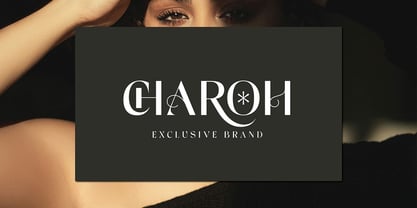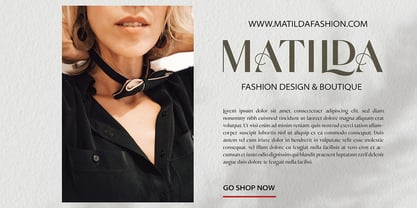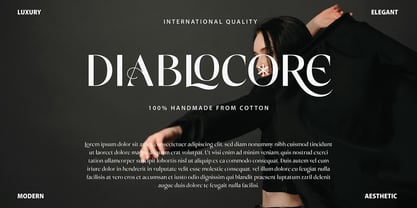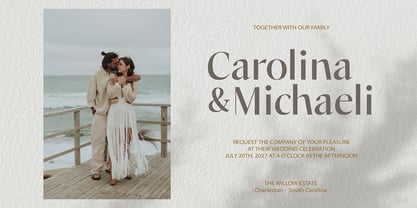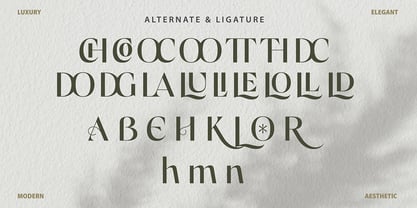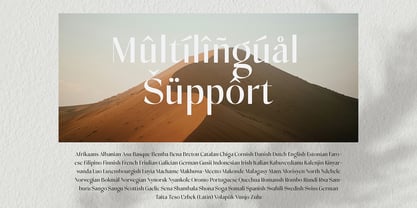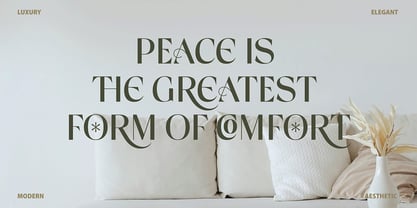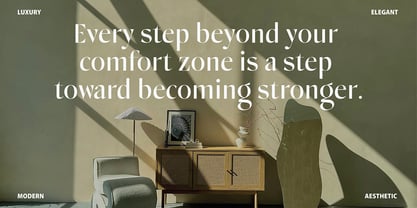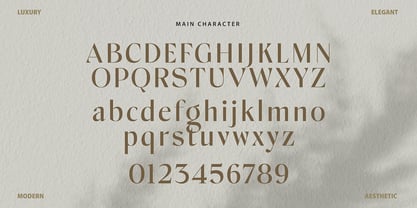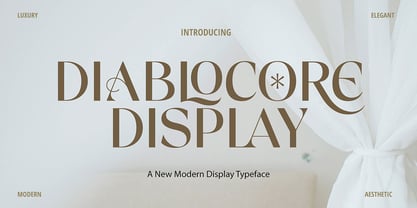
Diablocore Display
La famille de polices Diablocore Display a été conçue par Ferdiansyah et publiée par Pointlab. Diablocore Display contient 2 styles et options de package familial. En savoir plus sur cette famille
Cellina Wildrone Display Font that we created special for Luxury and Fashion branding needs, with extra characters alternate in unique shape will be ready to add value of your brand. It so nice to leverage designer or product owner that need solutions to make their design look more classy and modern. And specially for this font, We prepared any alternate characters to help you create unlimited variations for your creative needs.
Cellina Wildrone Display Font come with 200+ glyphs. The alternative characters were divided into several Open Type features such as Swash, Stylistic Sets, Stylistic Alternates, and Ligature. The Open Type features can be accessed by using Open Type savvy programs such as Adobe Illustrator, Adobe InDesign, Adobe Photoshop Corel Draw X version, And Microsoft Word. And this Font has given PUA unicode (specially coded fonts). so that all the alternate characters can easily be accessed in full by a craftsman or designer.
Cellina Wildrone Display :
Uppercase & Lowercase International Languange & Symbols Support Punctuation & Number PUA Unicode Range Standard Ligatures Discretionary Ligatures Stylistic Alternates Stylistic Set.